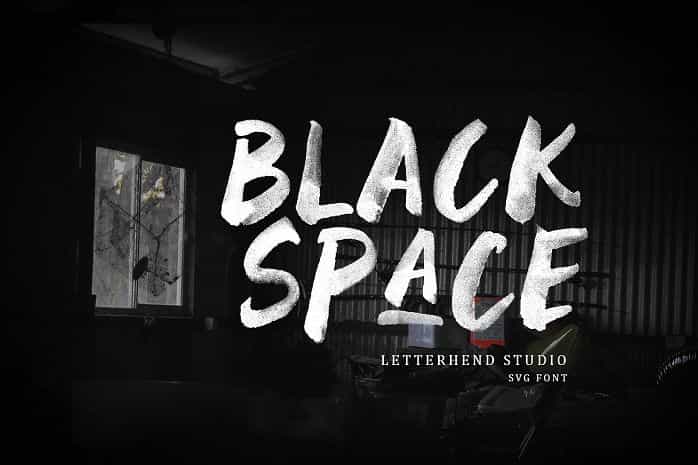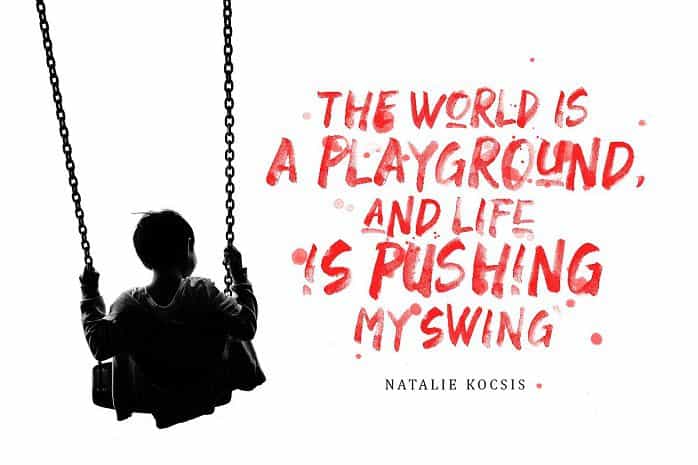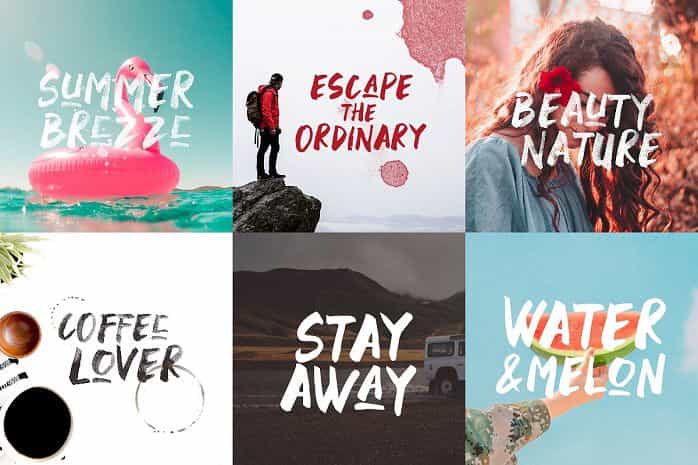
Introducing Black Space Font. Black Space – a SVG Font, that was created by brush hand writing. It is the natural texture that makes the fonts looks unique among many other. This typeface is for you who needs a font for the headline, logotype, apparel, invitation, branding packaging advertising etc. The typeface comes in uppercase italics small letters punctuations symbols & numerals stylistic set alternate ligatures etc.